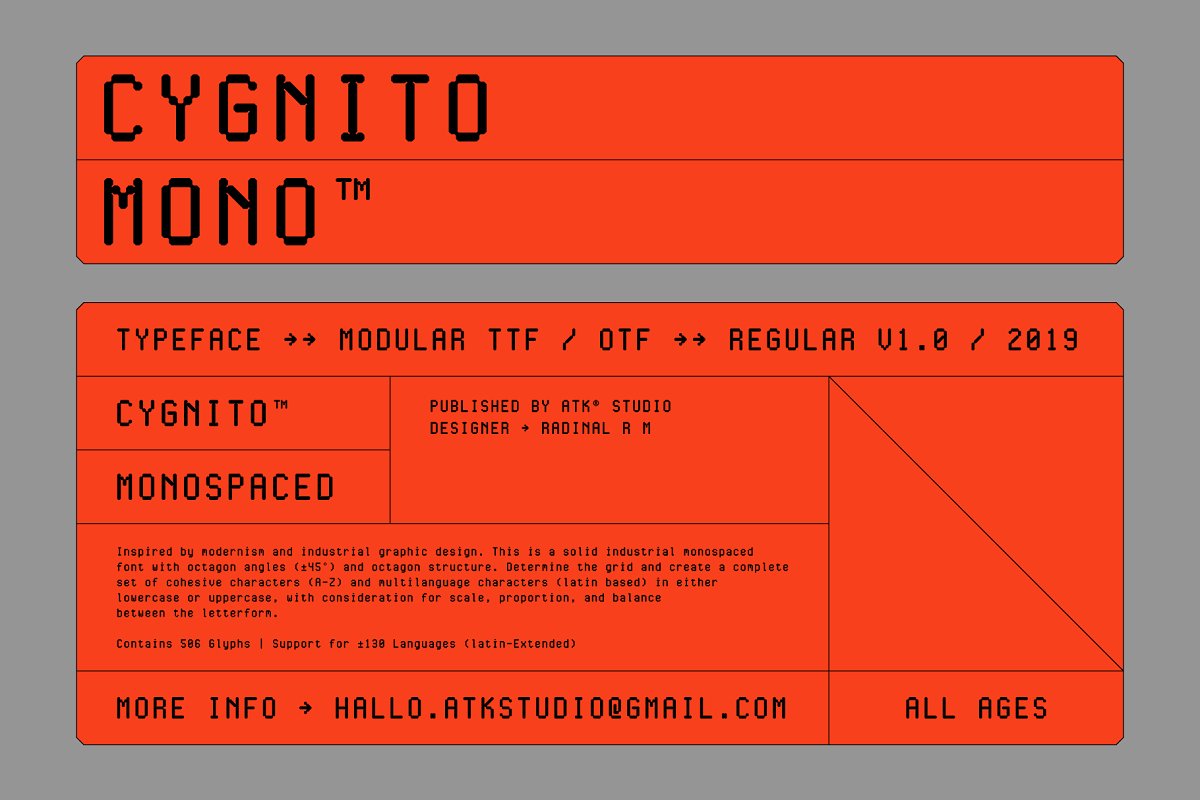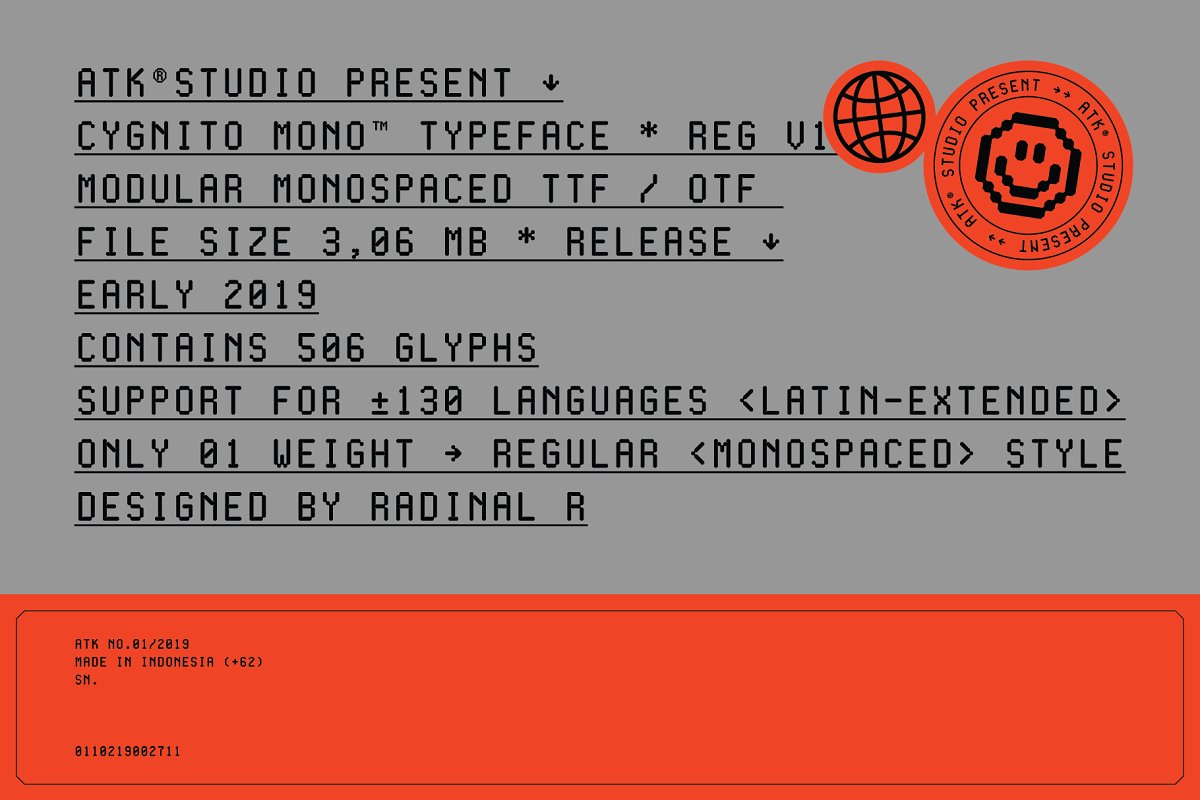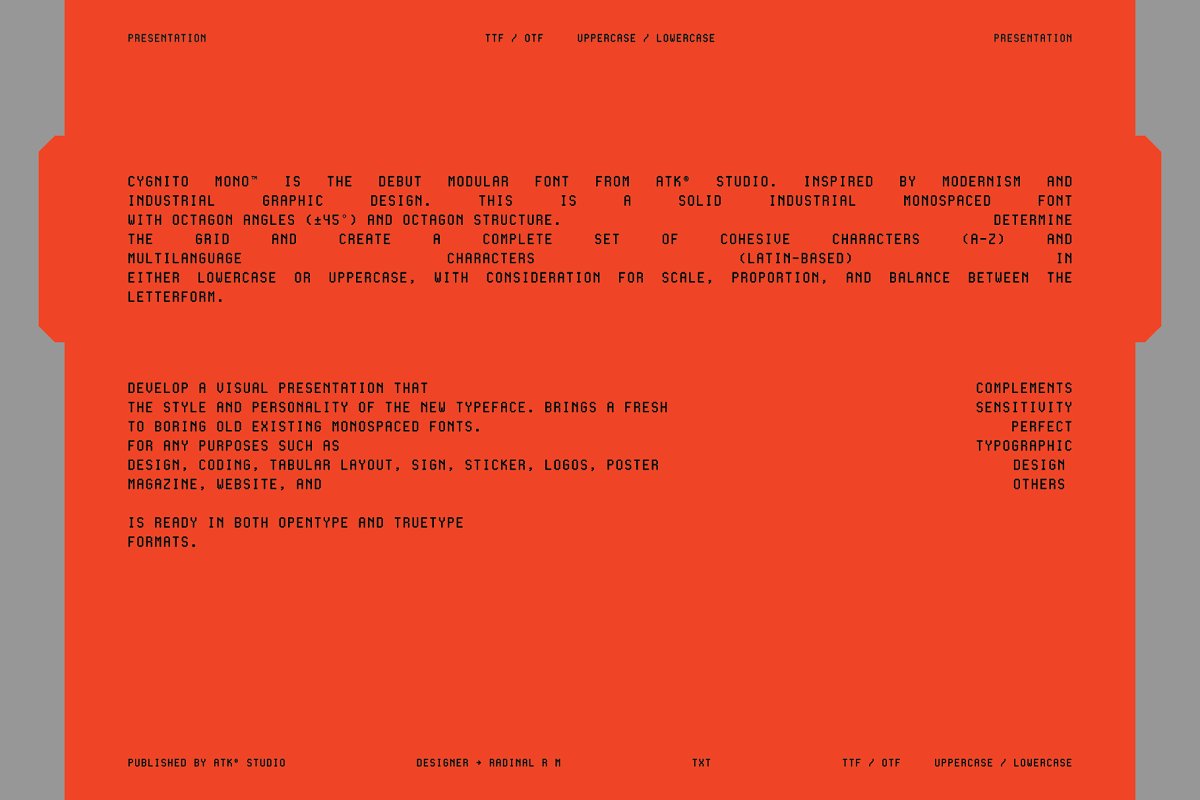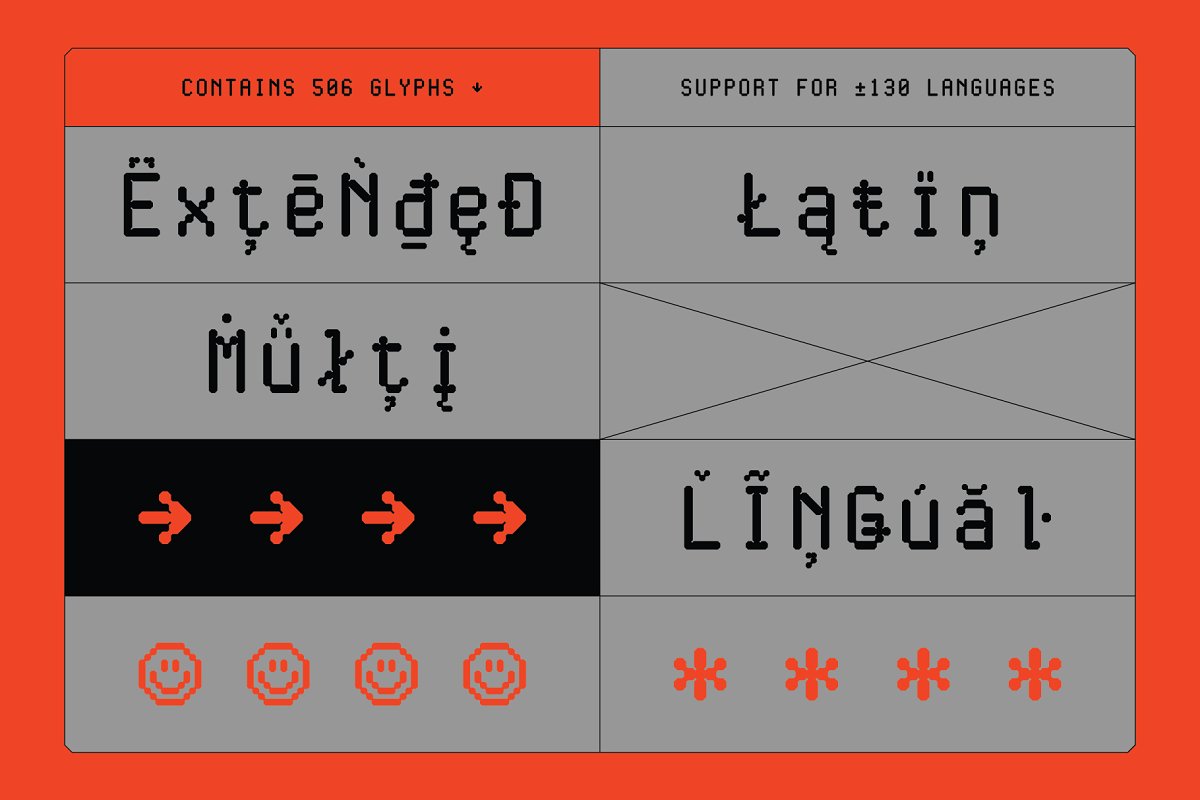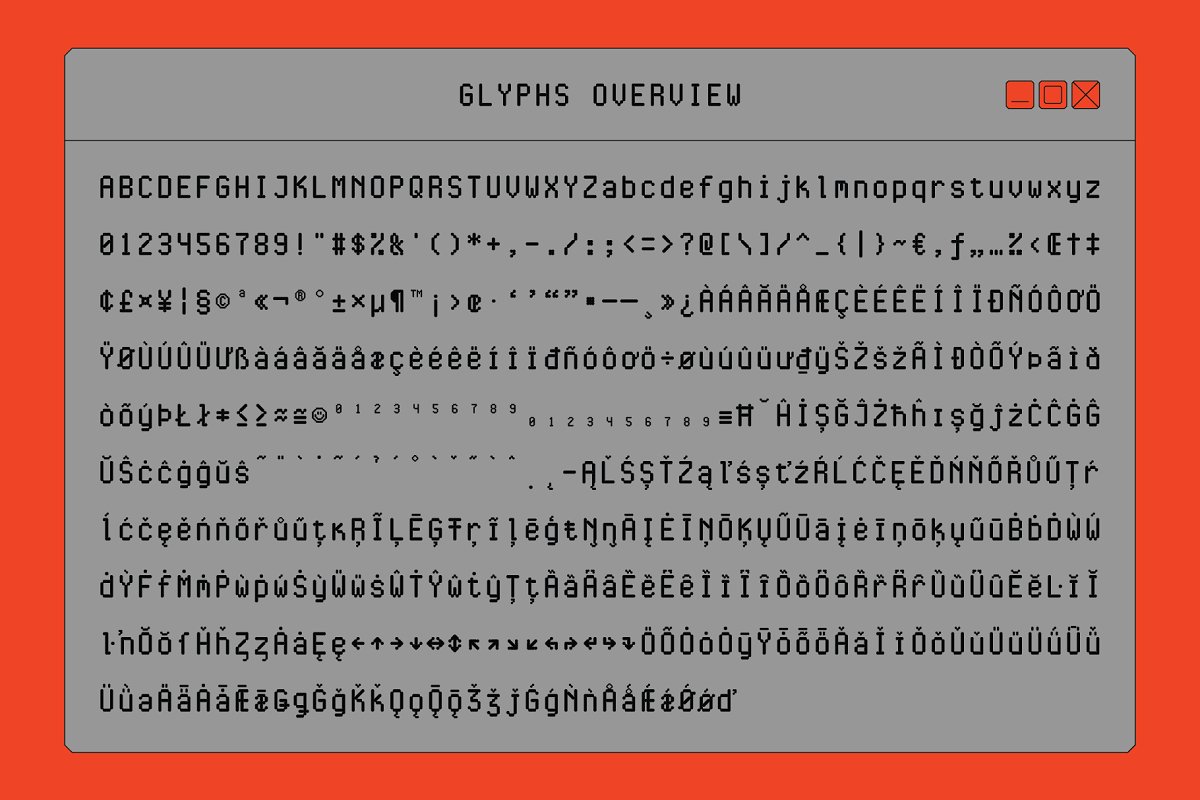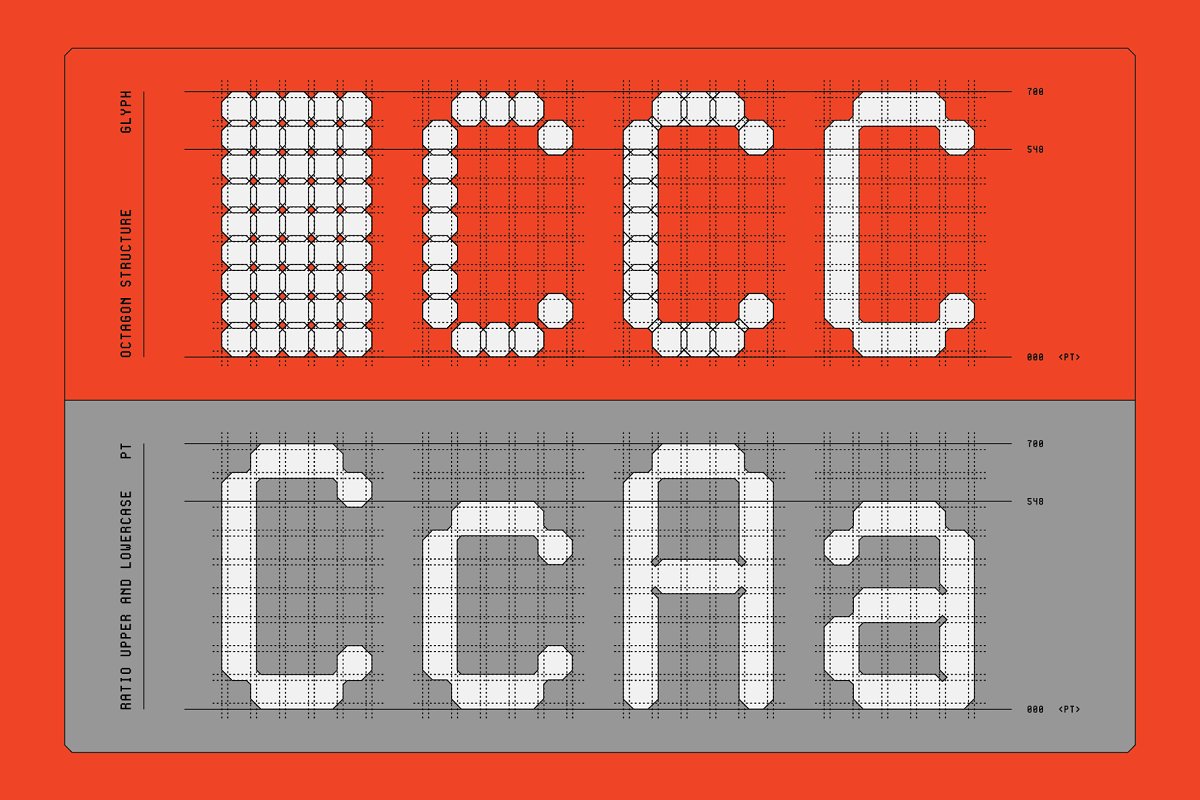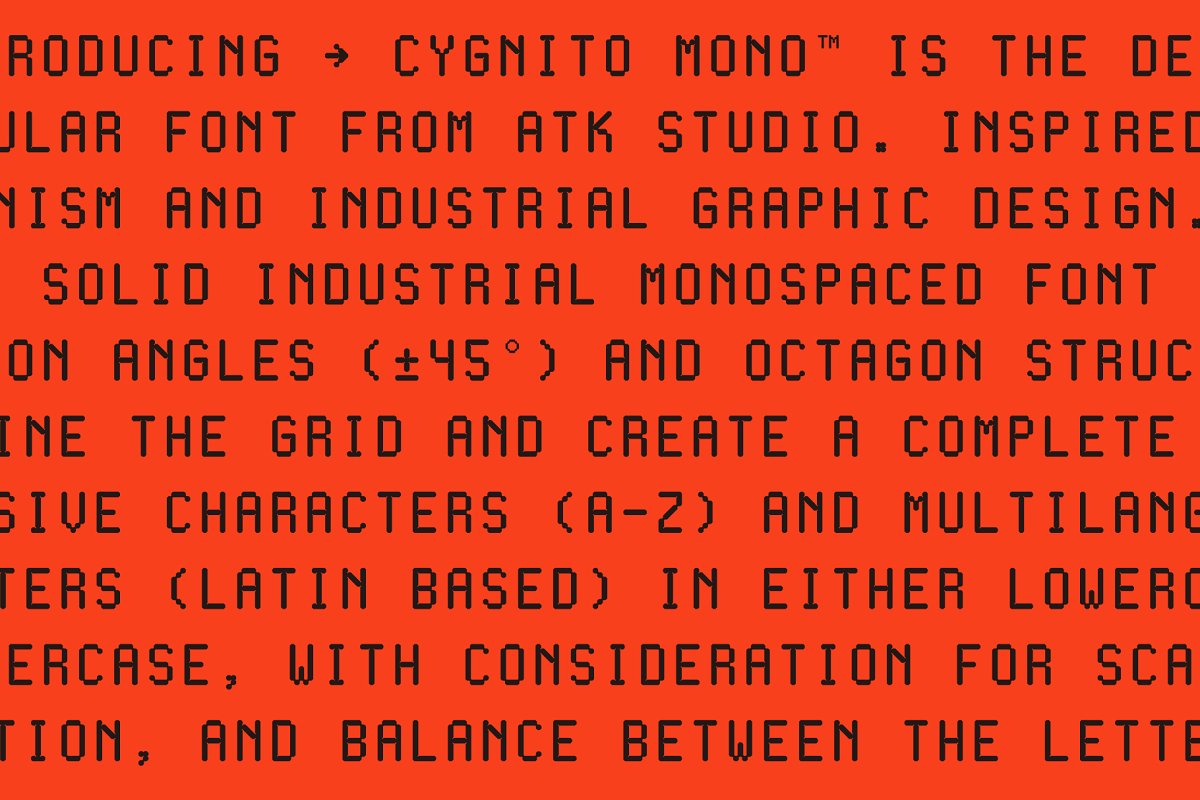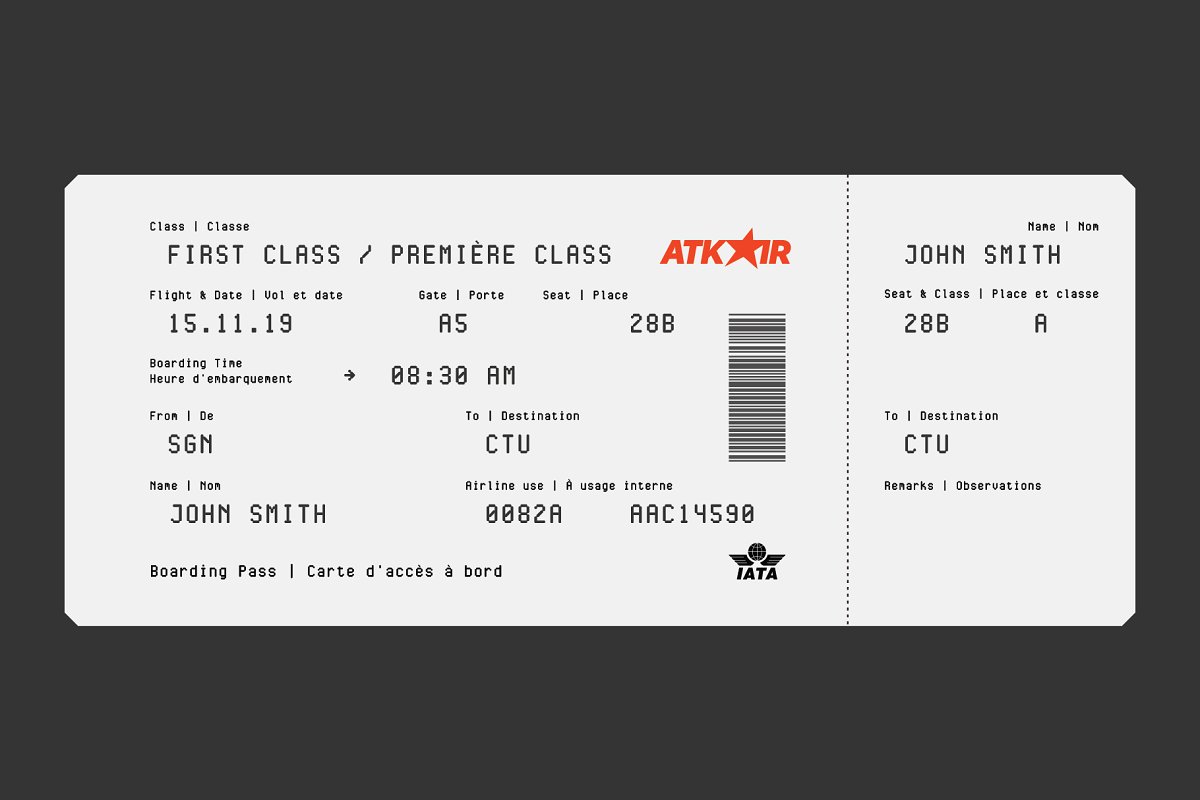
About the Cygnito Mono Font
Cygnito Mono™ is the debut font from ATK® Studio, Inspired by modernism and industrial graphic design, This is a solid industrial monospaced font with octagon angles (±45°) and octagon structure, Determine the grid and create a complete set of cohesive characters (A-Z) and multilanguage characters (latin based) in either lowercase or uppercase, with consideration for scale, proportion, and balance between the letterform
Develop a visual presentation that complements the style and personality of the new typeface, Brings a fresh sensitivity to boring old existing monospaced fonts, Perfect for any purposes such as typographic design, coding, tabular layout, sign, sticker, logos, poster design, magazine, website, and others